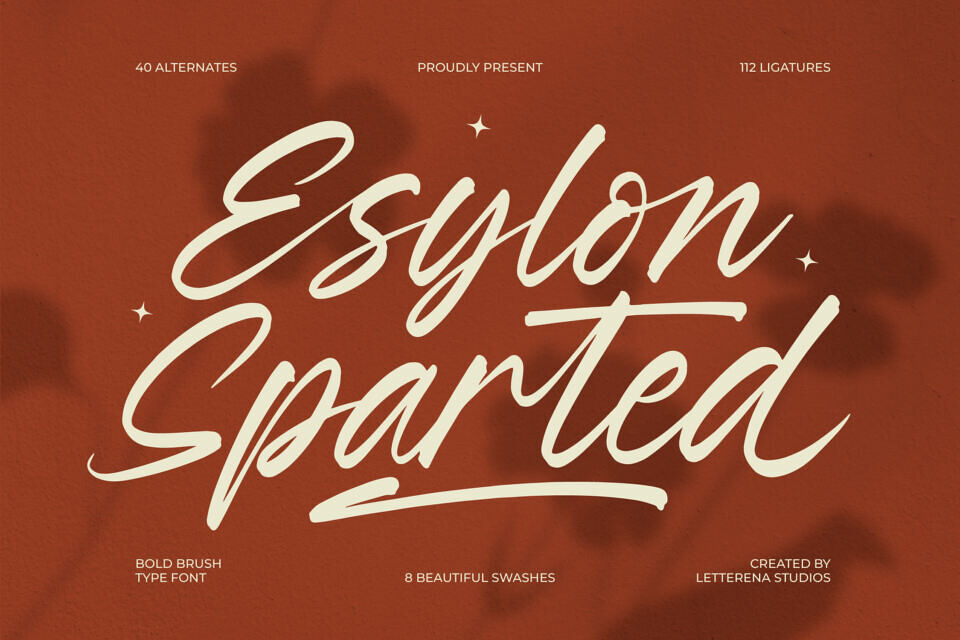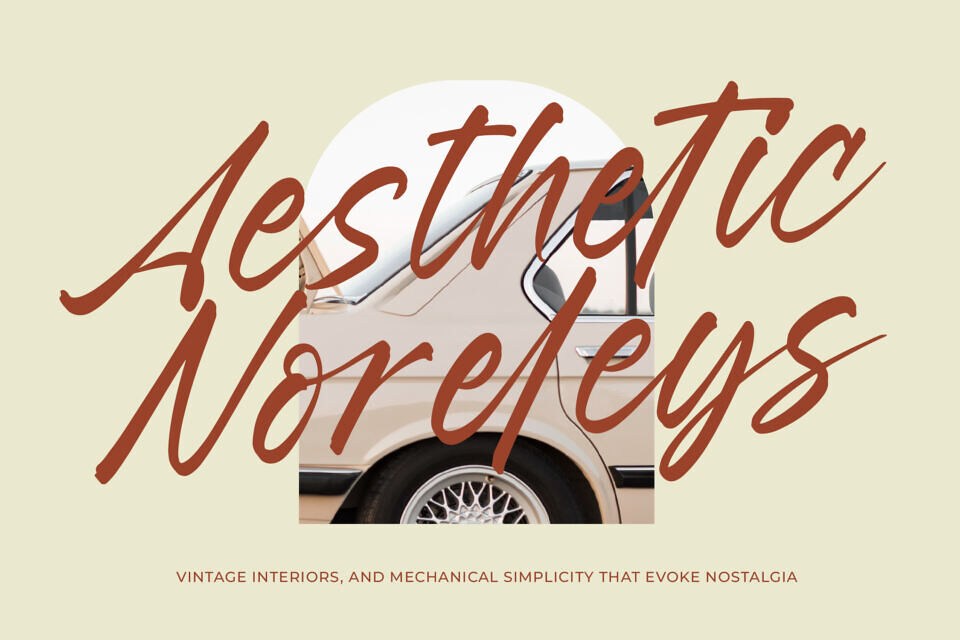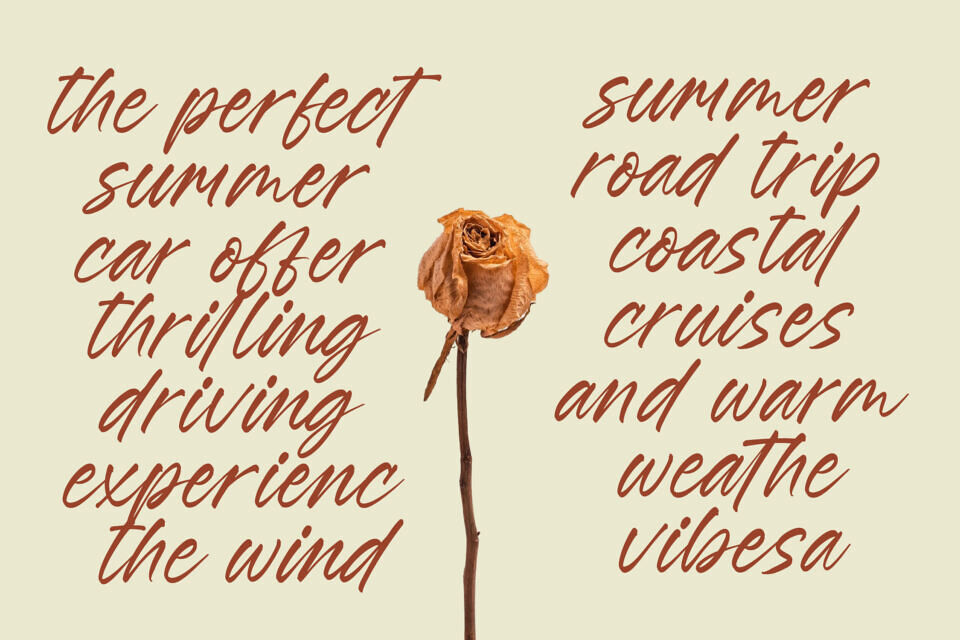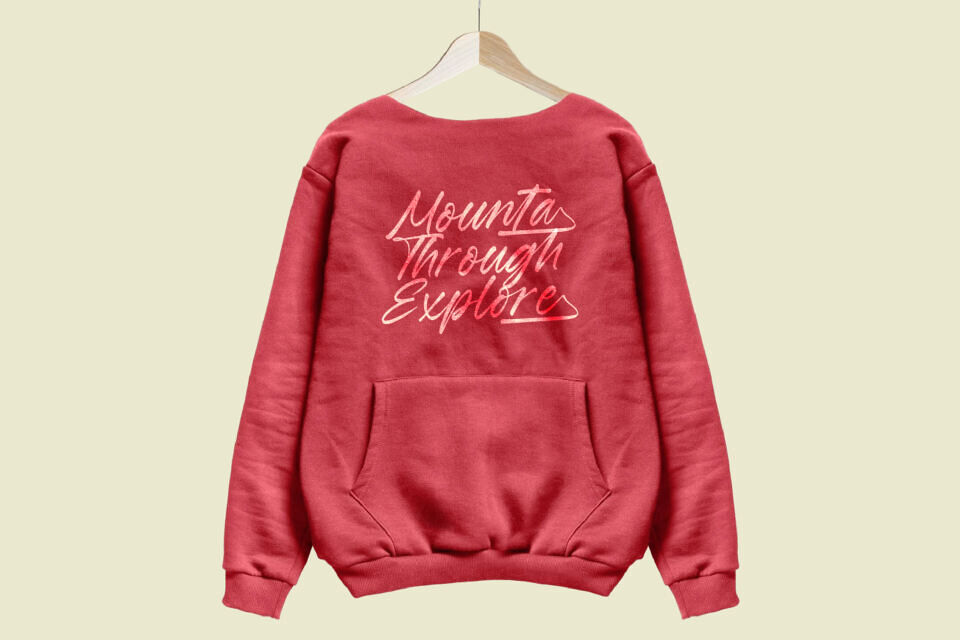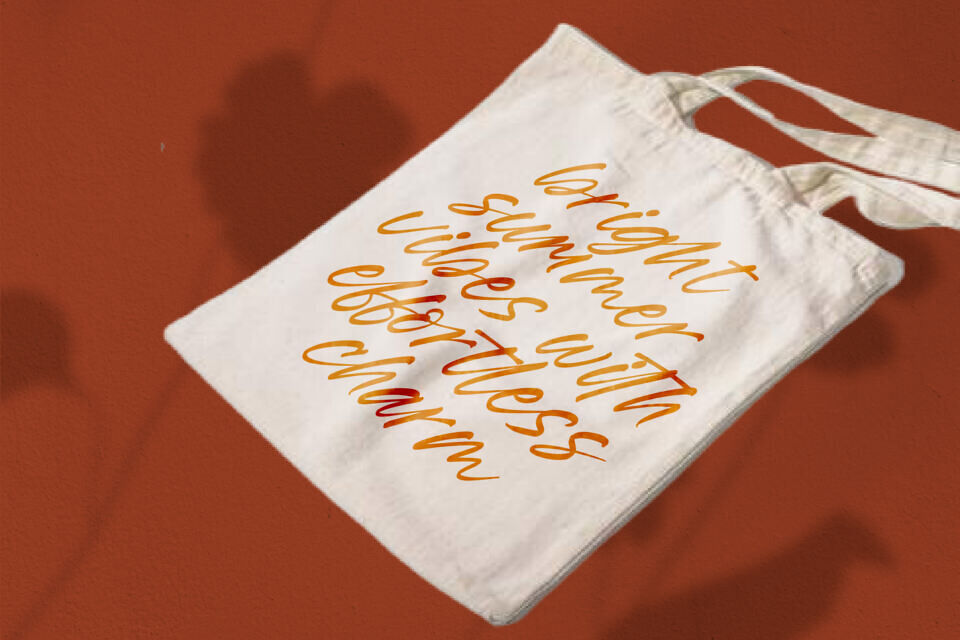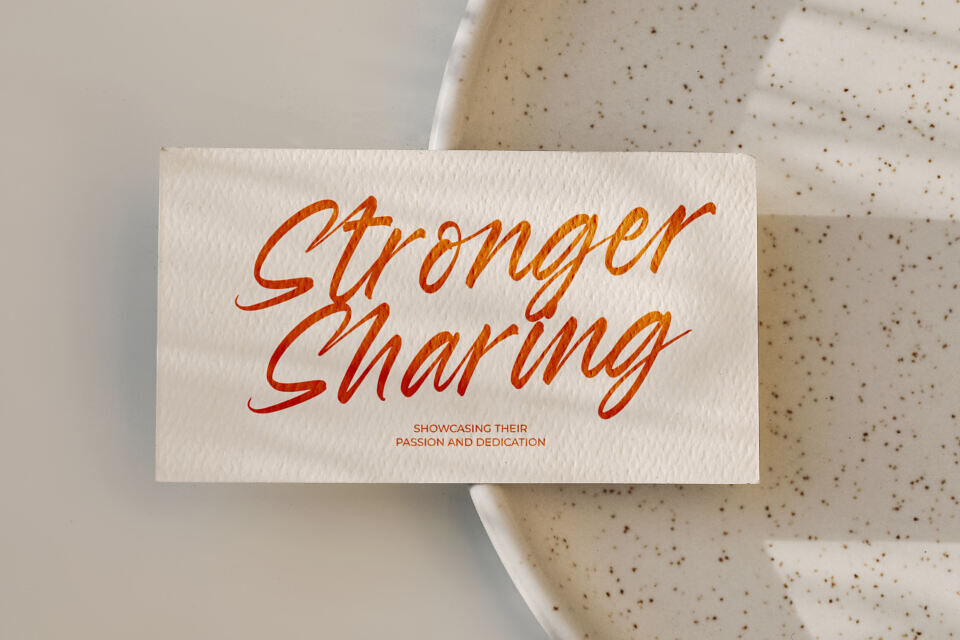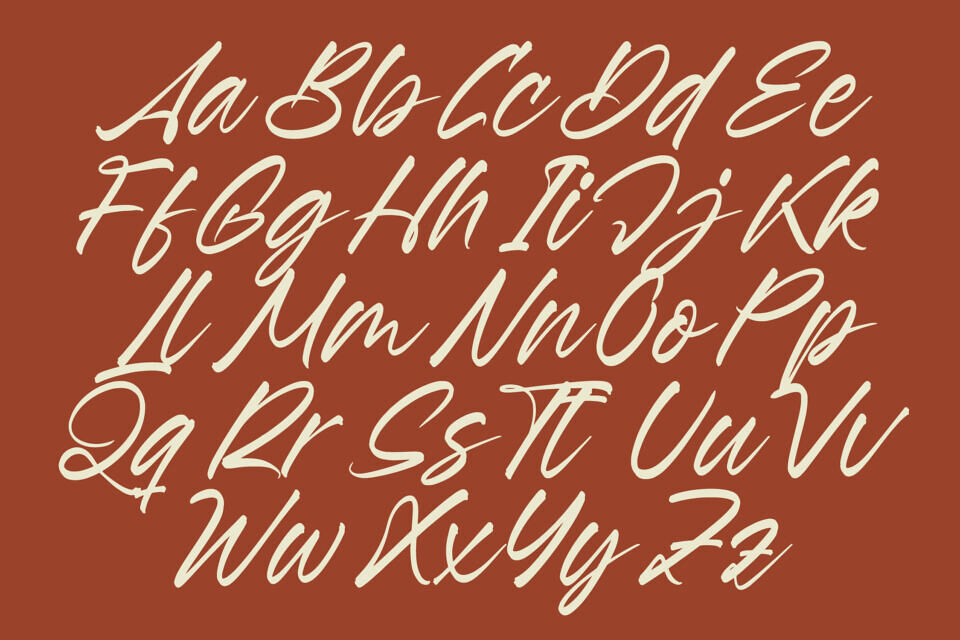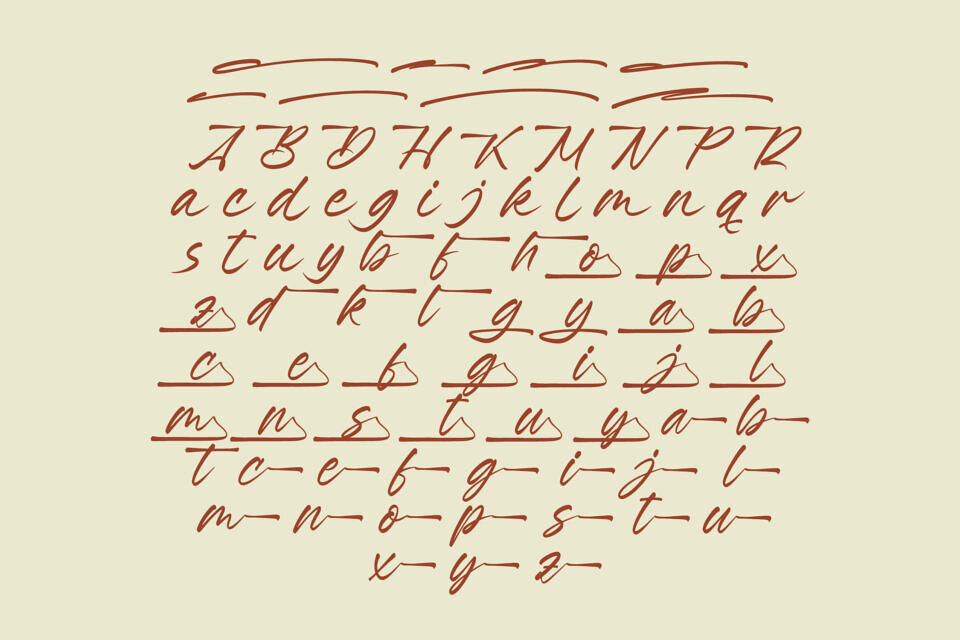
Esylon Sparted from Letterena is a Luxury Brush Script font suitable for any projects such as: logos, branding projects, homeware designs, product packaging, mugs, quotes, posters, shopping bags, t-shirts, book covers, name card, invitation cards, greeting cards, label, photography, watermark, special events, and all your other luxury and beautiful projects that need a Luxury Script taste.